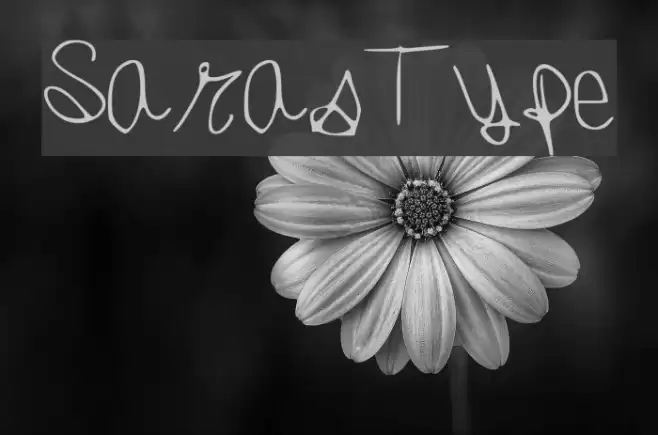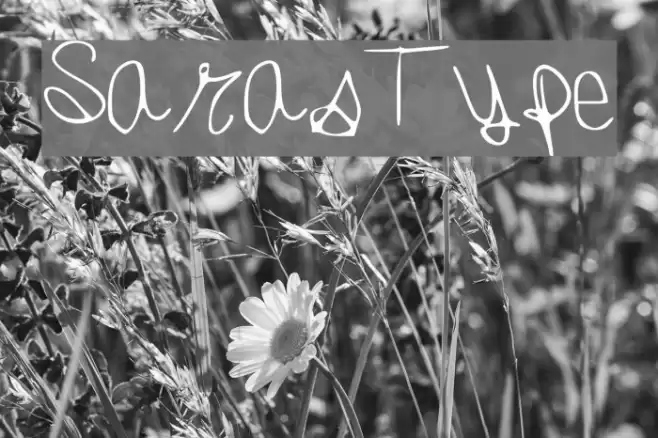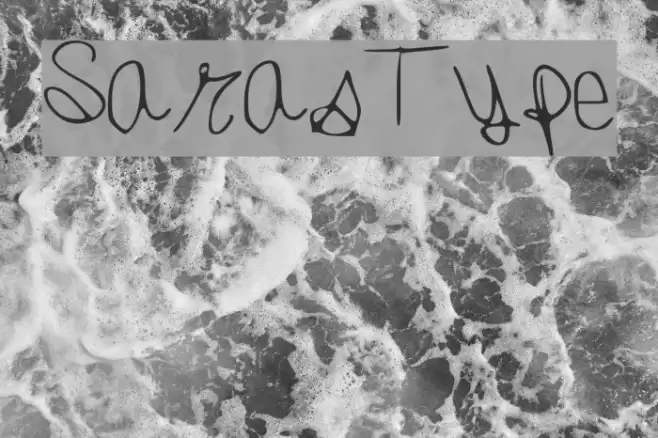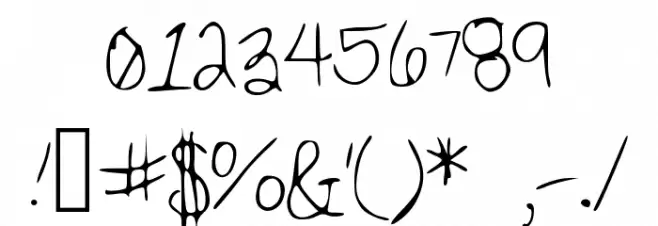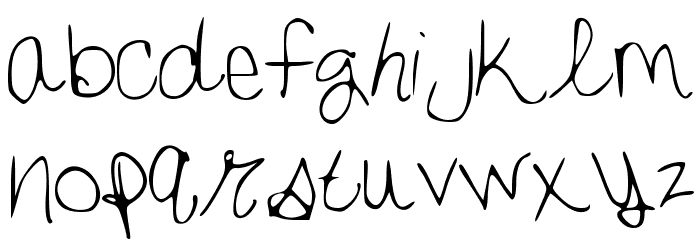
This font features a playful and whimsical handwritten style, characterized by its fluid and dynamic strokes. The letters have a casual, informal appearance, with varying stroke widths that add a lively and energetic feel. The uppercase letters are bold and expressive, while the lowercase letters maintain a consistent flow, enhancing readability. The numbers and special characters are crafted with the same playful touch, making them suitable for creative and artistic projects. The overall design exudes a sense of fun and spontaneity, perfect for adding a personal touch to any design.
A playful, handwritten font with dynamic strokes and a whimsical style.
- Proposed Projects: Ideal for greeting cards, invitations, children's books, and creative branding projects.
- Category: Handwritten
- Use Case: Headlines, Logos, Creative projects